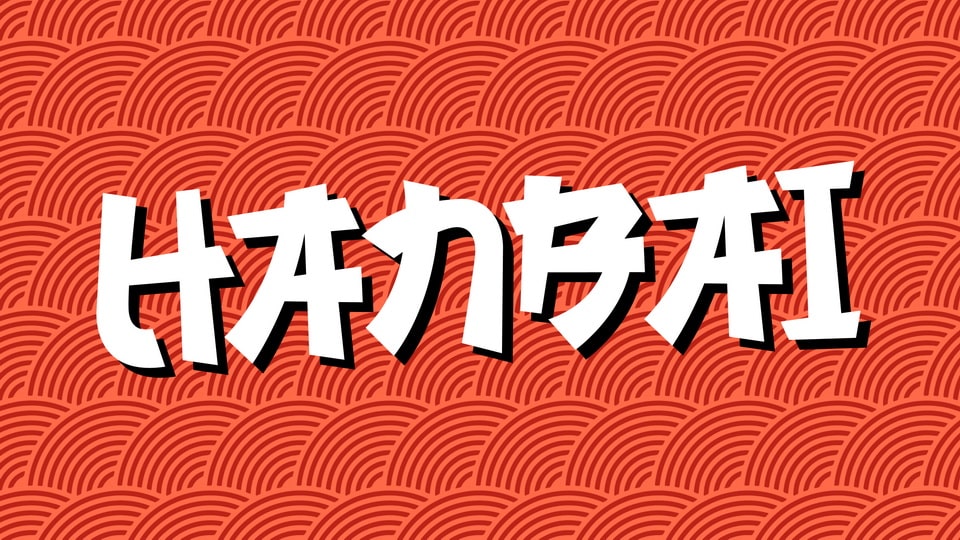
Download Hanbai font, a beautiful Japanese typeface that blends tradition with modernity. Ideal for businesses, social media, and entertainment, Hanbai font adds a touch of Asia to your designs.